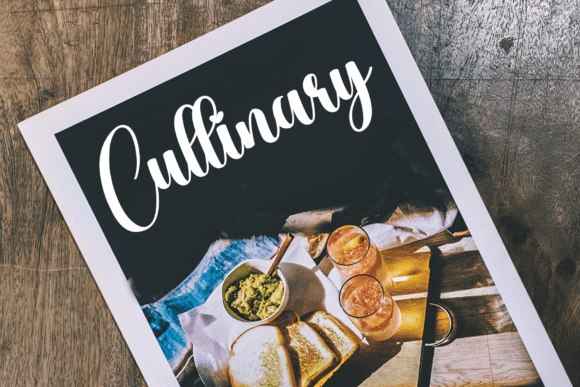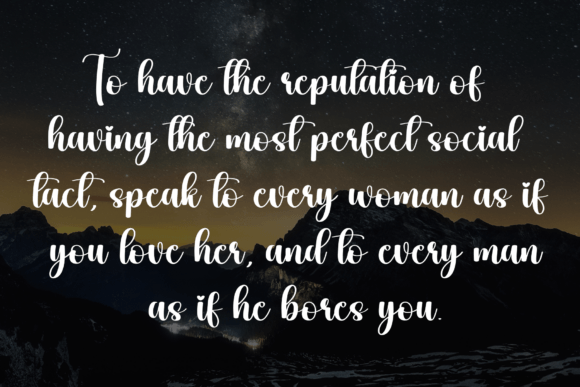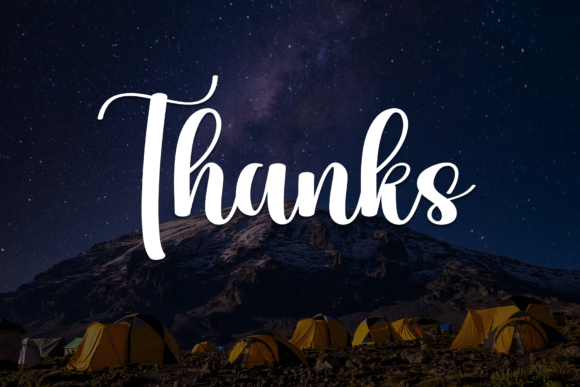
Introduction to Night Camping Font
Imagine yourself sitting by a campfire, surrounded by the starry night sky, and feeling the tranquility of the great outdoors. This serene moment is exactly what the Night Camping Font embodies – a sense of serenity and elegance that’s perfect for any design project. As designers, we’re always on the lookout for that special something to elevate our creative projects, and the Night Camping Font is an excellent addition to any design resource.
With its high-quality, handwritten style, the Night Camping Font is an ideal choice for designers who want to add a personal touch to their work. Whether you’re creating wedding invitations, thank you cards, or quotes, this font is sure to make your design stand out. And the best part? It’s available for free download, making it an accessible design resource for anyone.
Whether you’re working on a small project or a large-scale design, the Night Camping Font is a valuable asset that can add a touch of sophistication and elegance to your work. Its transparent background and versatile style make it perfect for a wide range of creative projects, from logos and business cards to greeting cards and more.
Key Features of Night Camping Font
- High-quality, vector-based design for crisp and clear output
- Transparent background for easy customization and versatility
- Perfect for creative projects, including outdoor and nature-inspired themes
- High-resolution design, ideal for printing and large-format applications
- Unique, hand-drawn style that adds a touch of personality to any design
Honest Review: Night Camping Font
I recently stumbled upon the Night Camping Font while searching for a design resource for a creative project. I was excited to give it a try and see if it lived up to its promise of high quality and versatility.
- High-quality design: The Night Camping Font is well-crafted and visually appealing, making it perfect for any creative project.
- Transparent background: The font has a transparent background, which makes it easy to use in conjunction with other design elements.
- Limited character set: The Night Camping Font only includes a limited character set, which may not be suitable for longer blocks of text.
- No bold or italic options: The font only comes in regular weight, which may limit its use in certain design contexts.
Overall, I’m impressed with the Night Camping Font and would definitely recommend it for any design project that requires a high-quality, creative font. While it has some limitations, its strengths far outweigh its weaknesses.
Night Camping Font
To get the most out of the Night Camping Font, use it on a transparent background to create a clean and minimalist design. You can also pair it with other fonts to create a unique and creative project.
The Night Camping Font is perfect for outdoor-themed projects such as camping, hiking, and adventure travel. You can also use it for creative projects such as typography, posters, and flyers.